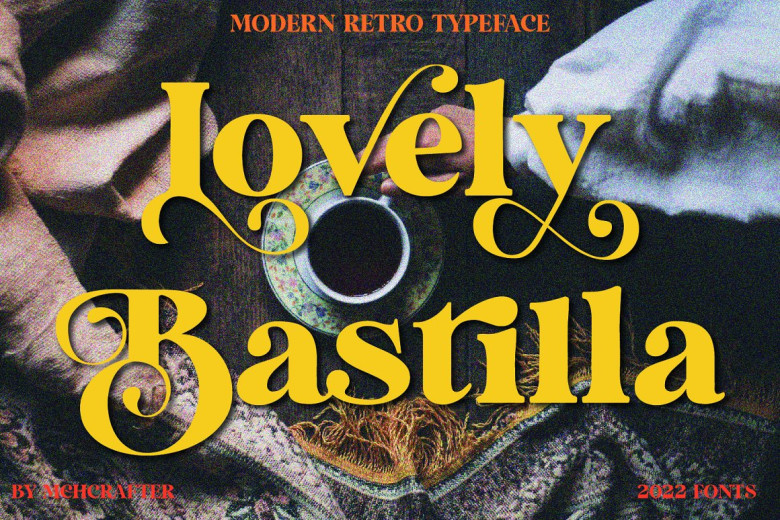
Lovely Bastilla Font
Lovely Bastilla font is an Eye-Catching Modern Stylistic Serif font designed specifically to add contemporary and trendy appeal. We designed it specifically for branding purposes with all ligatures and alternatives designed in such a way as to meet all design requirements, offering designers or owners of products additional ways of modernising and trendyizing their appearance.
Specifically for Lovely Bastilla font we created all ligatures and alternate characters which will enable users to make unlimited variations that meet any given design brief.
Lovely Bastilla Serif Font